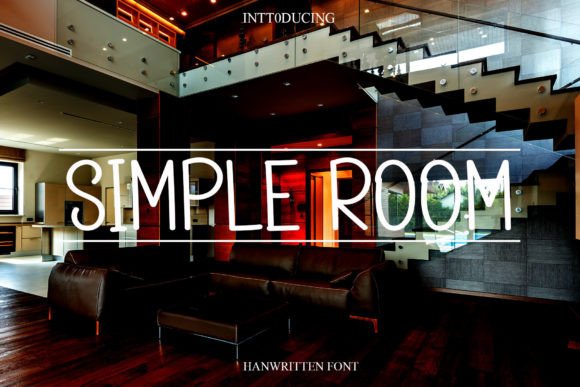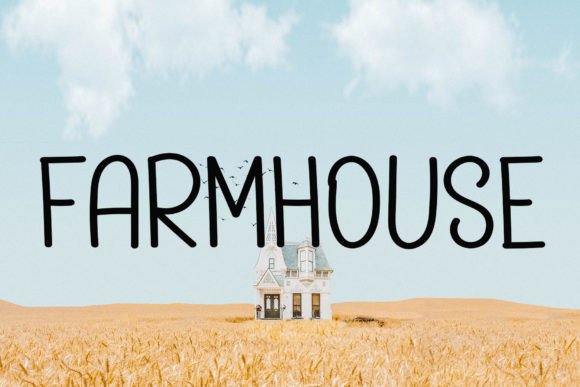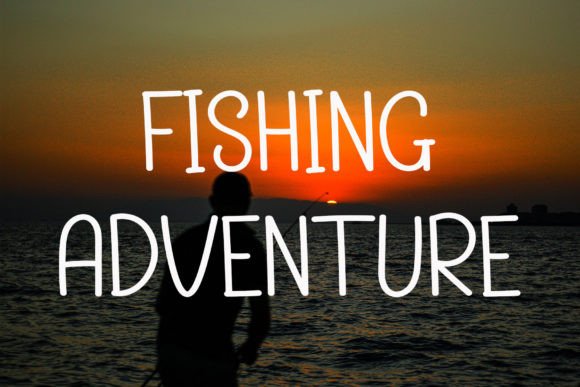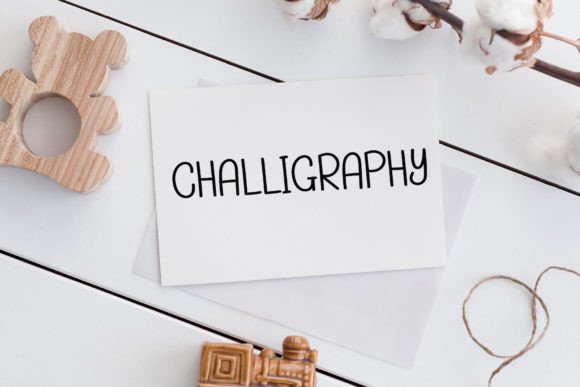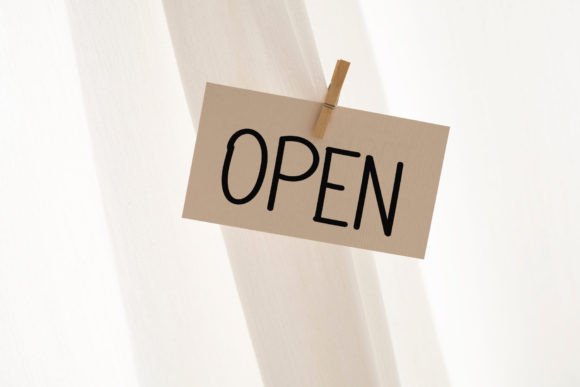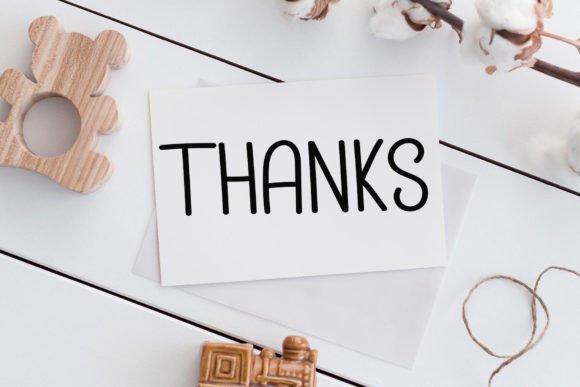
Simple Room Font
About Simple Room Font
Welcome to Simple Room, a font that encapsulates sweetness and beauty in its handwritten charm. With characters that gracefully dance along the baseline, this font is designed to infuse a touch of luxury into any project you embark upon. Whether you’re creating invitations, labels, greeting cards, or any other design endeavor, Simple Room brings a delightful spark of elegance to the table.
The handwritten nature of Simple Room gives it a unique and personal feel, making it well-suited for projects that aim to convey warmth and authenticity. Each character flows seamlessly into the next, creating a visual harmony that resonates with simplicity and beauty.
Simple Room’s ability to add a luxury spark to your designs makes it a versatile choice for a wide range of creative applications. From digital media to print materials, this font adapts effortlessly, ensuring that your projects radiate a sense of refinement and sophistication.
In the realm of invitations and cards, Simple Room becomes a storytelling element, transforming text into a visual narrative that speaks of charm and grace. Its handwritten strokes create a sense of intimacy, making it a perfect choice for projects that require a personal touch.